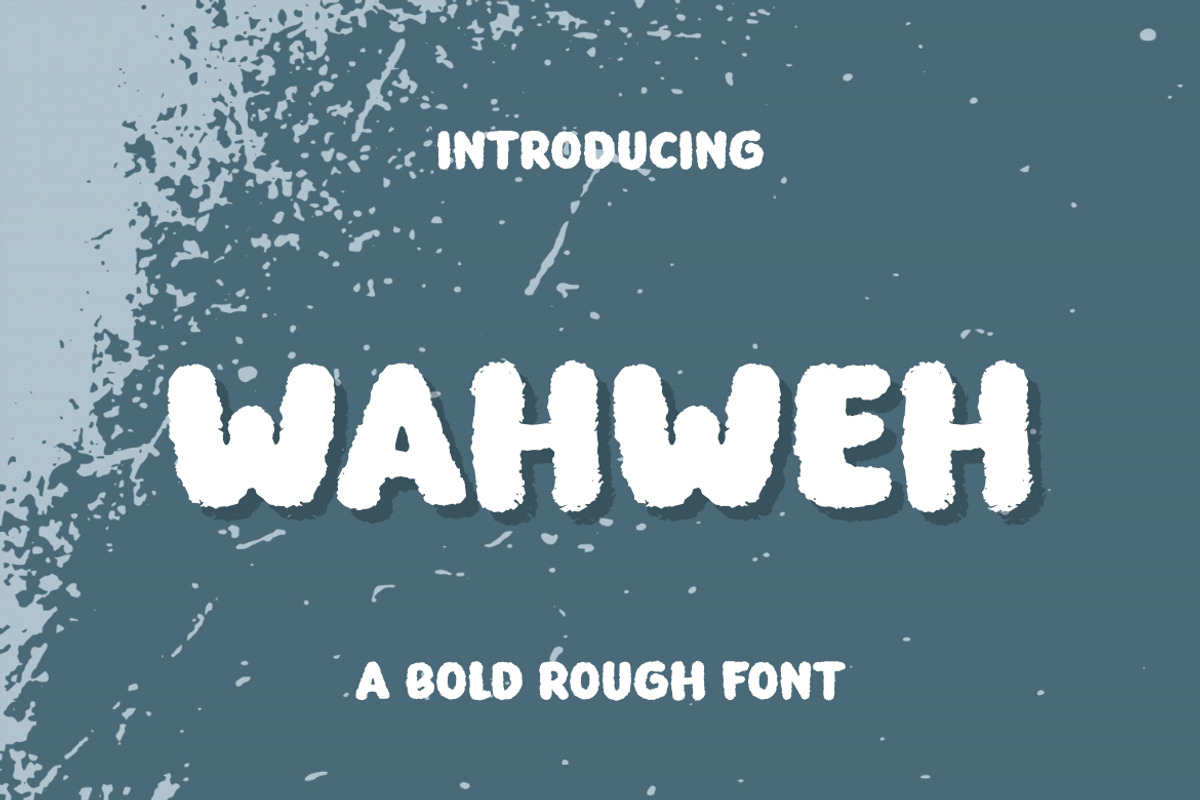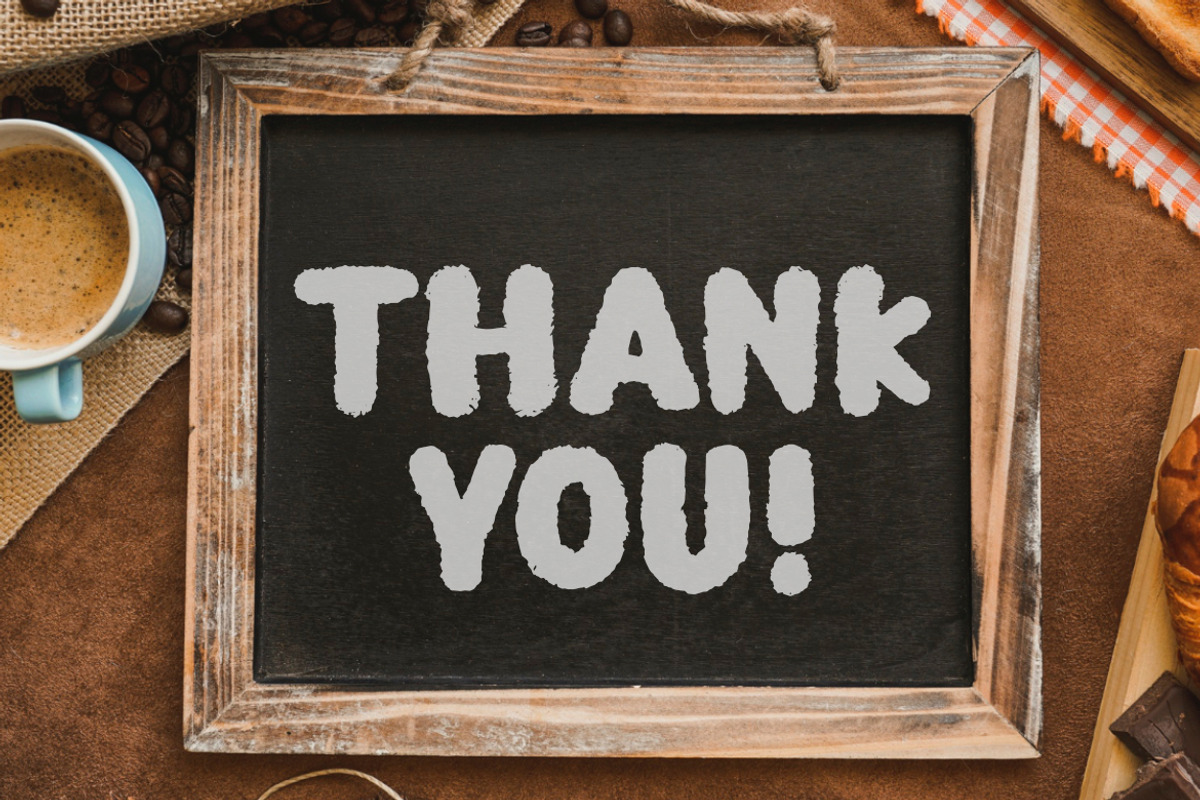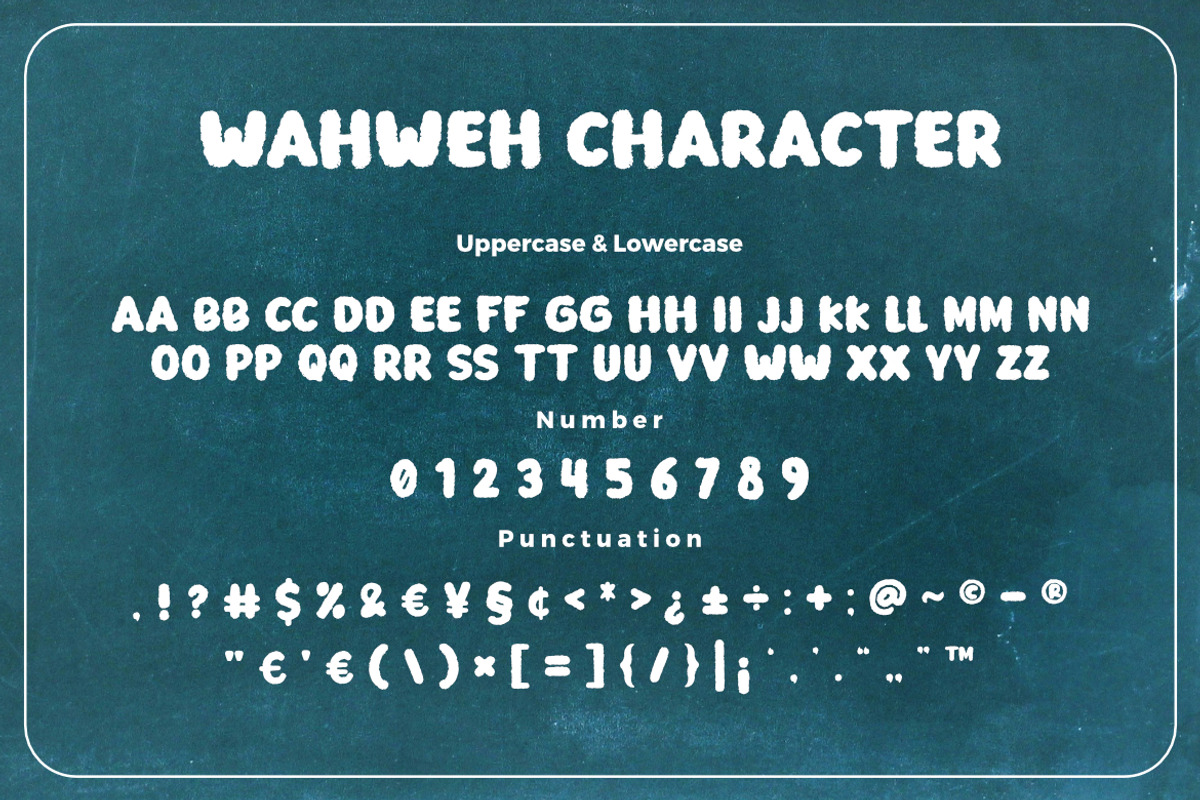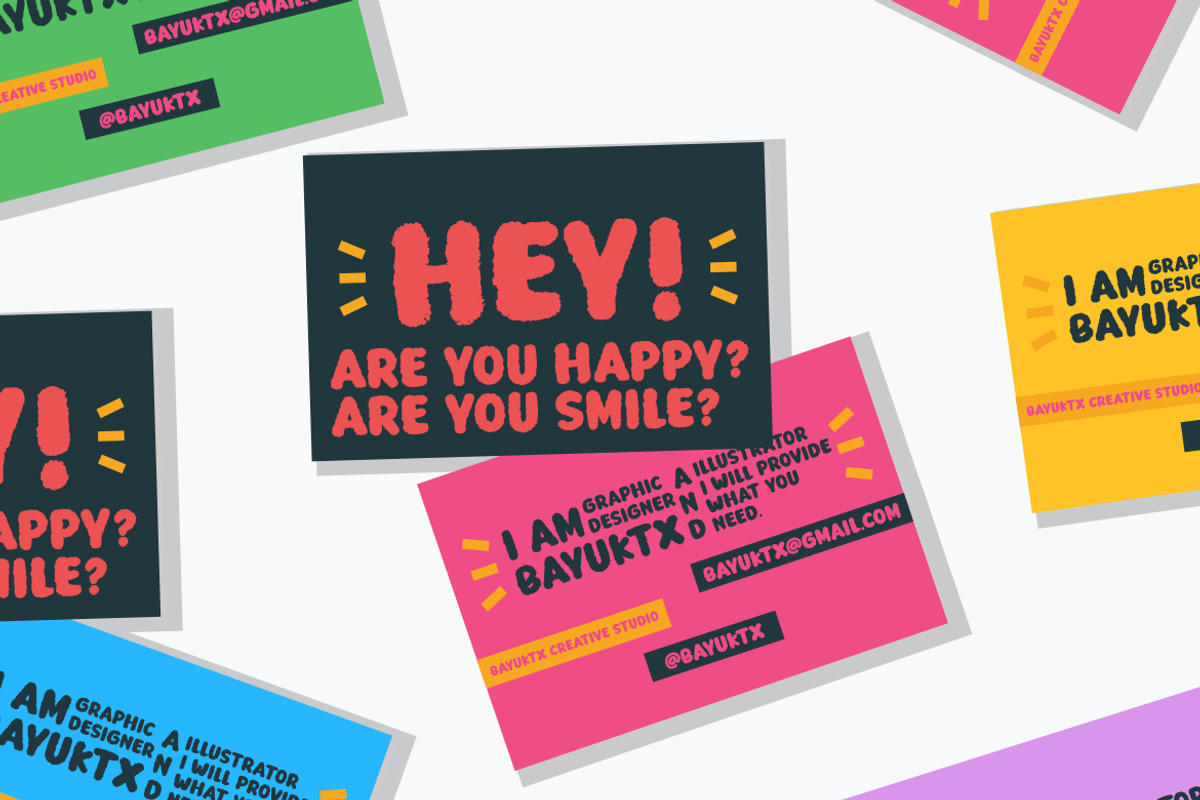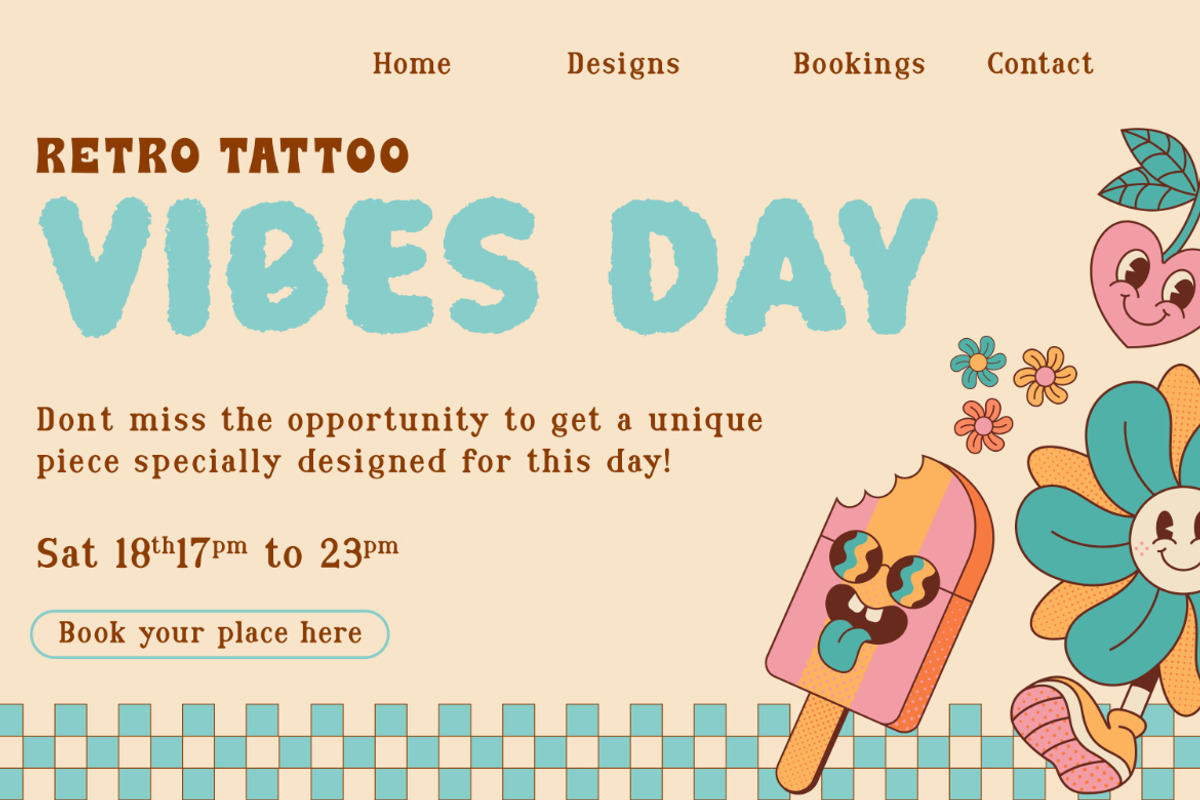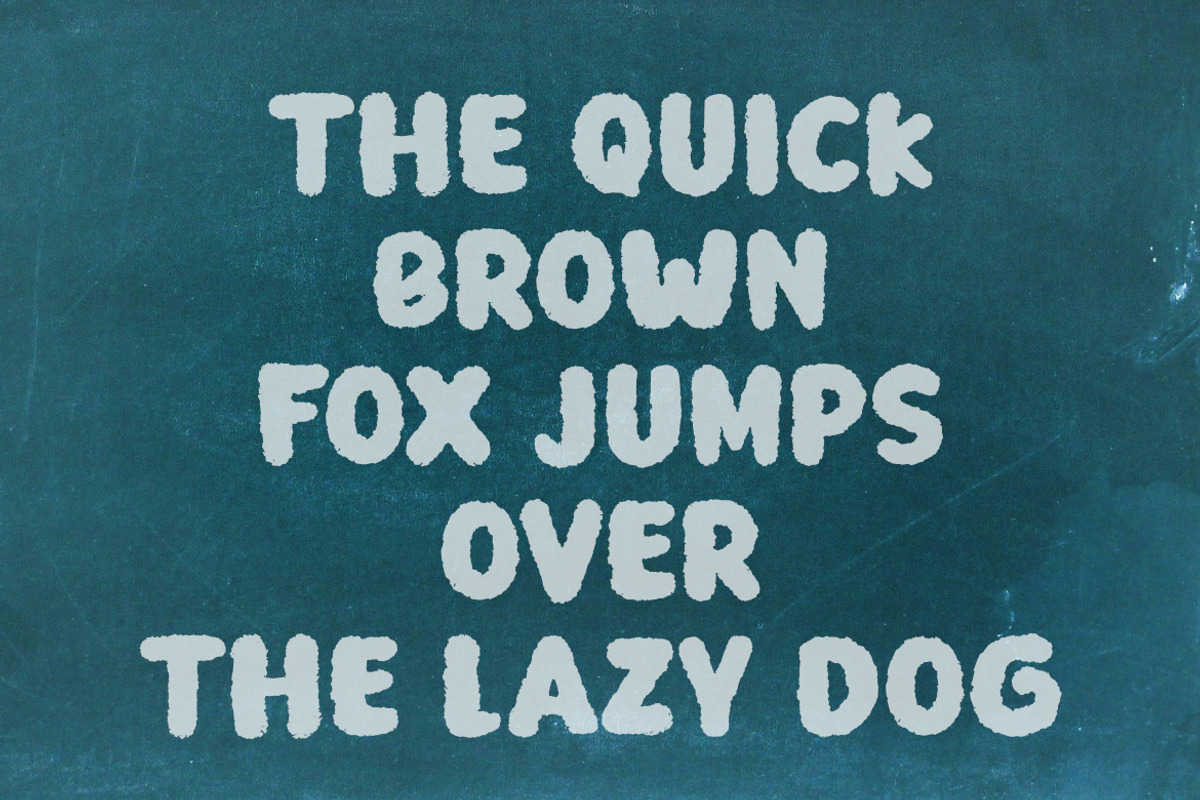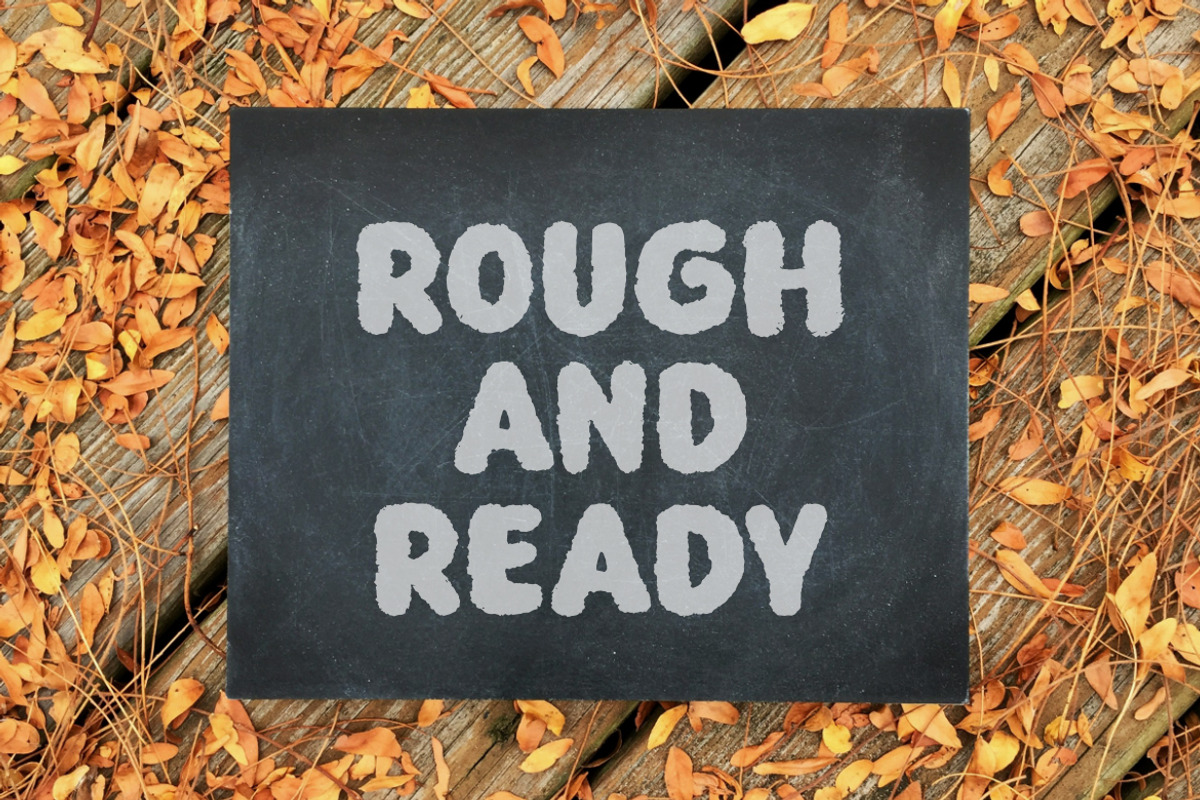
Wahweh a Bold Rough Font
Wahweh a Bold Rough Font, This font is made with a high premium quality level which you can use as flyers, quotes, posters, banners, packaging, merchandise, logotypes and much more.